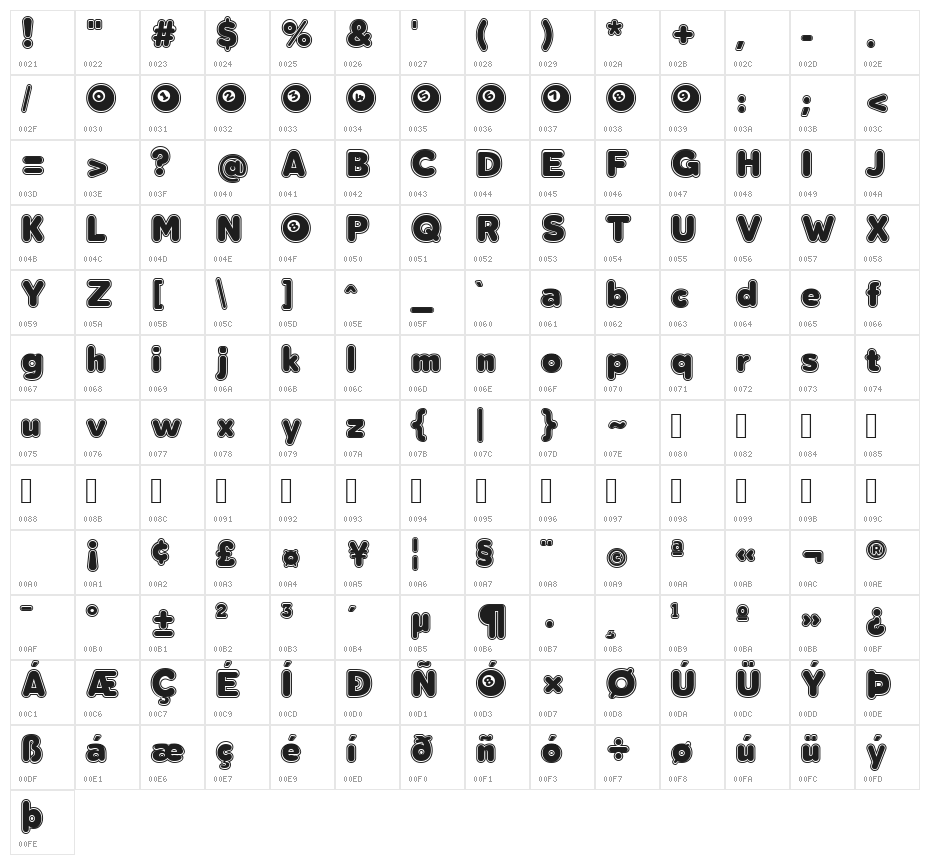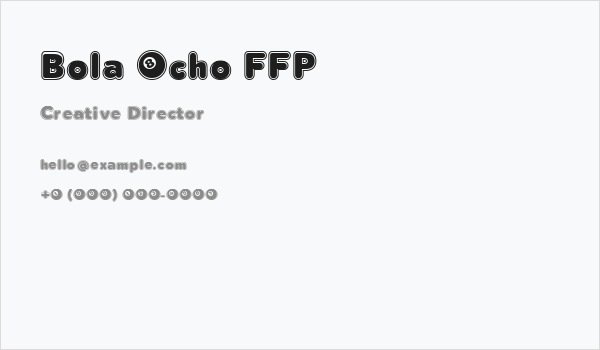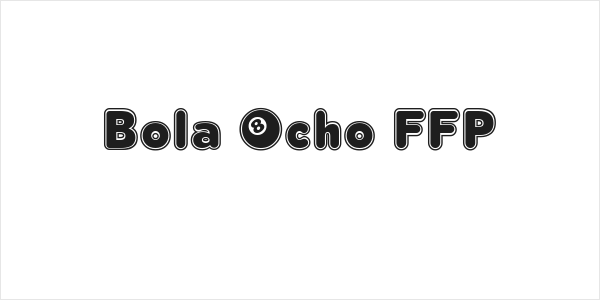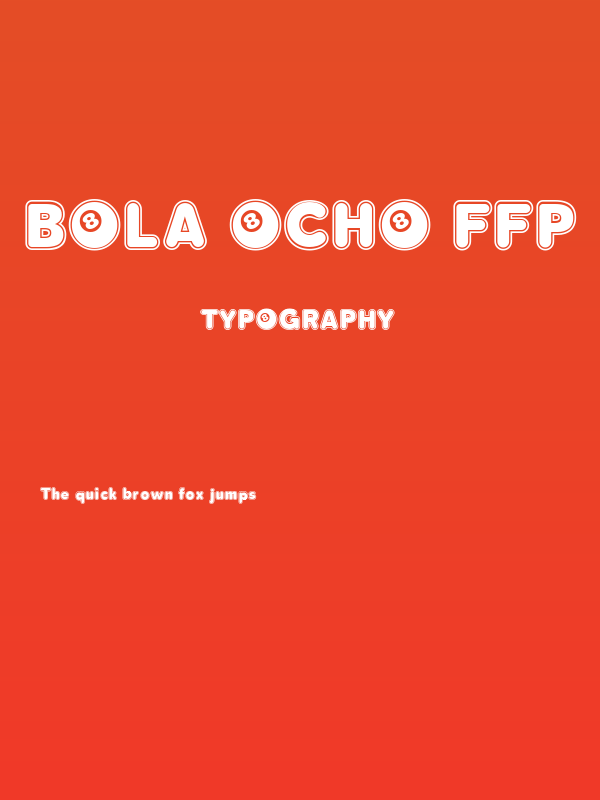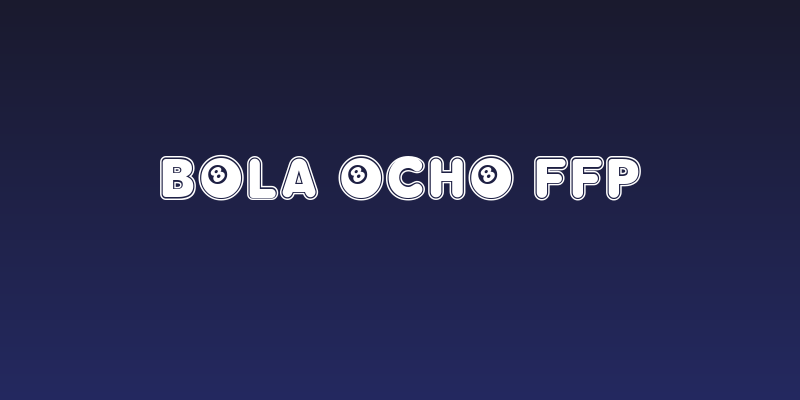
Bola Ocho FFP Font
Bola Ocho FFP Description
This font features bold, rounded characters with a playful and modern aesthetic. Each letter and number is encased in a thick outline, giving it a three-dimensional appearance. The characters are evenly spaced, with a consistent stroke width that adds to the uniformity of the design. The font includes both uppercase and lowercase letters, as well as numbers and a variety of special characters. Its unique style makes it stand out, making it suitable for eye-catching designs.
| Proposed Projects | Ideal for children's books, playful branding, posters, and creative advertising. |